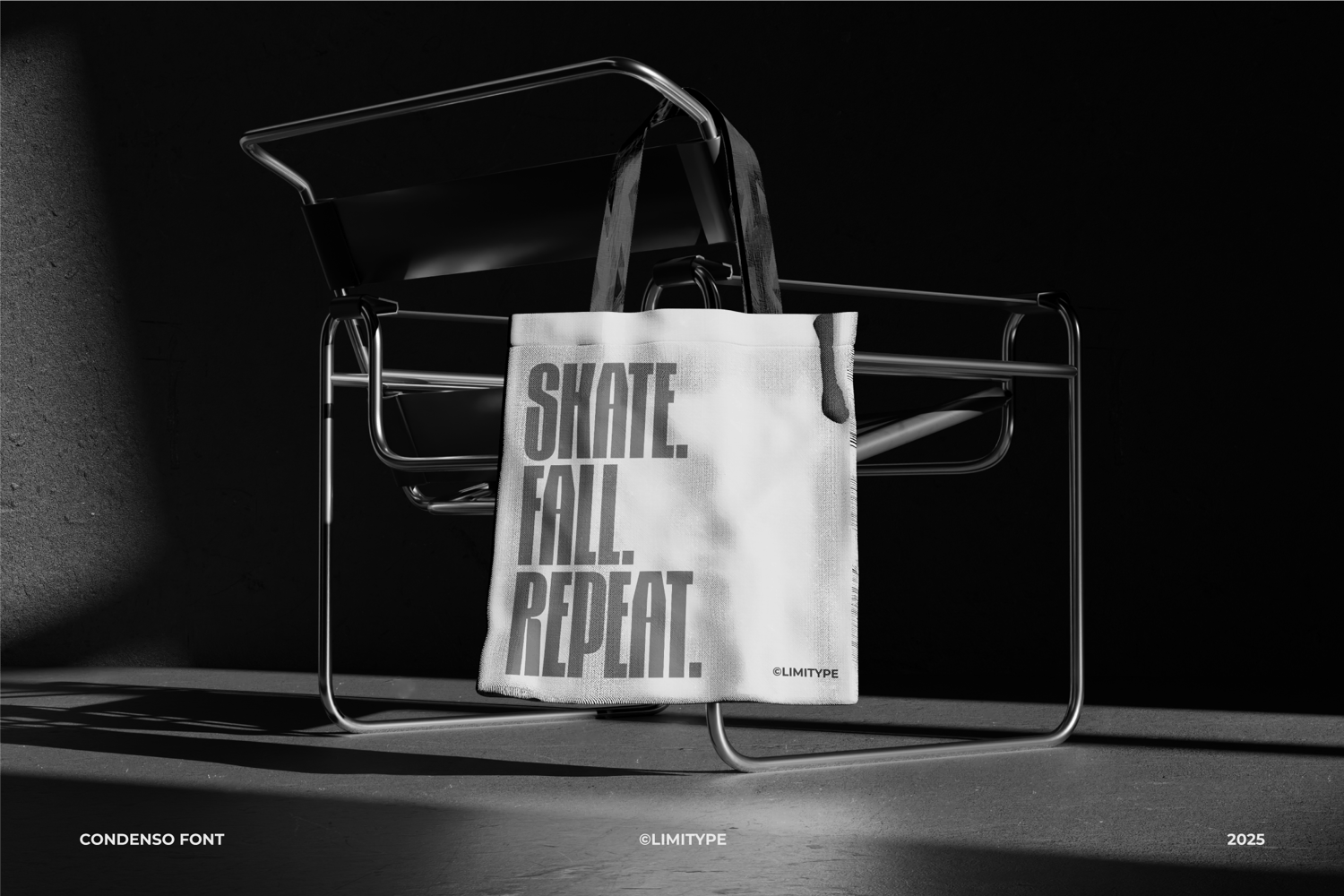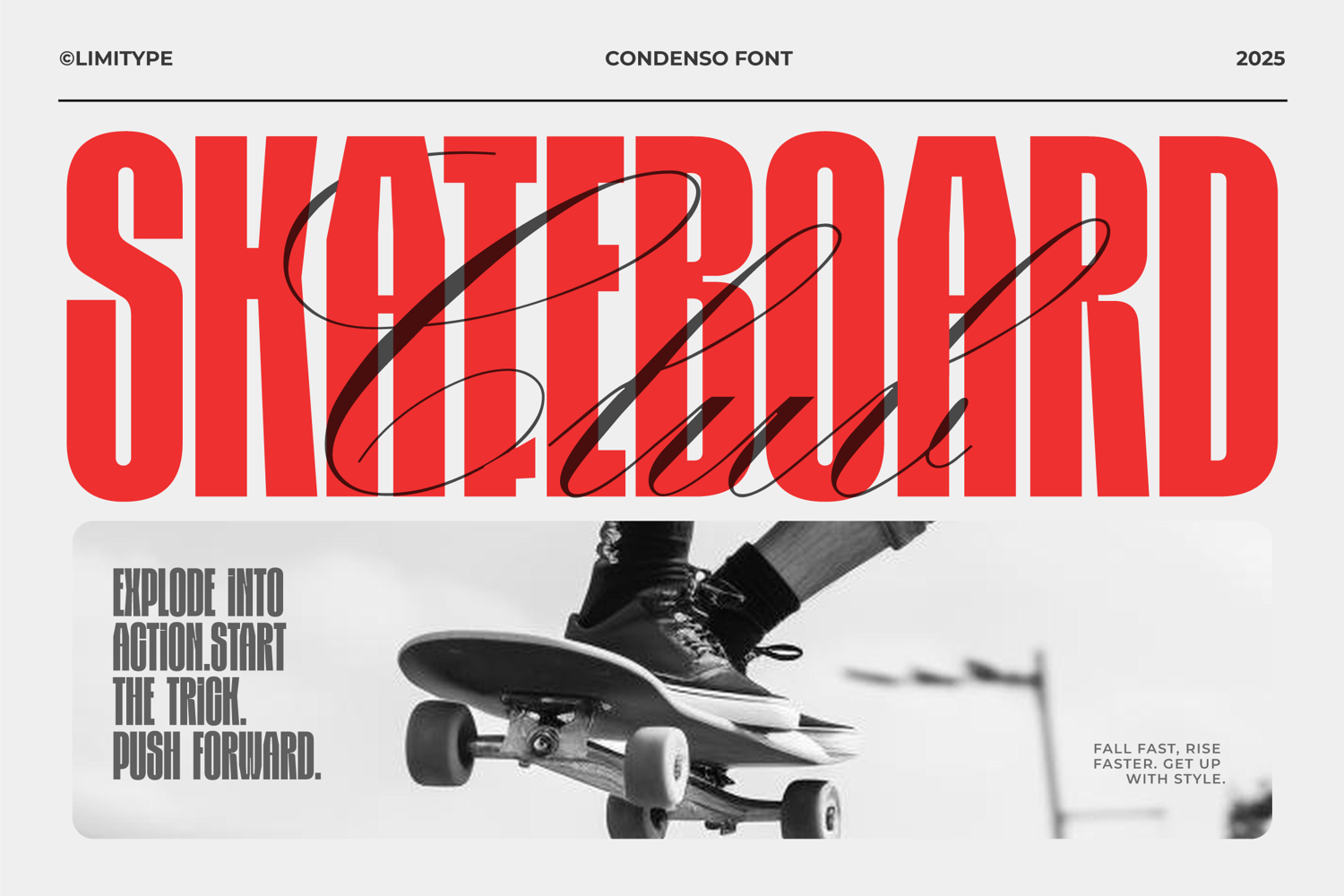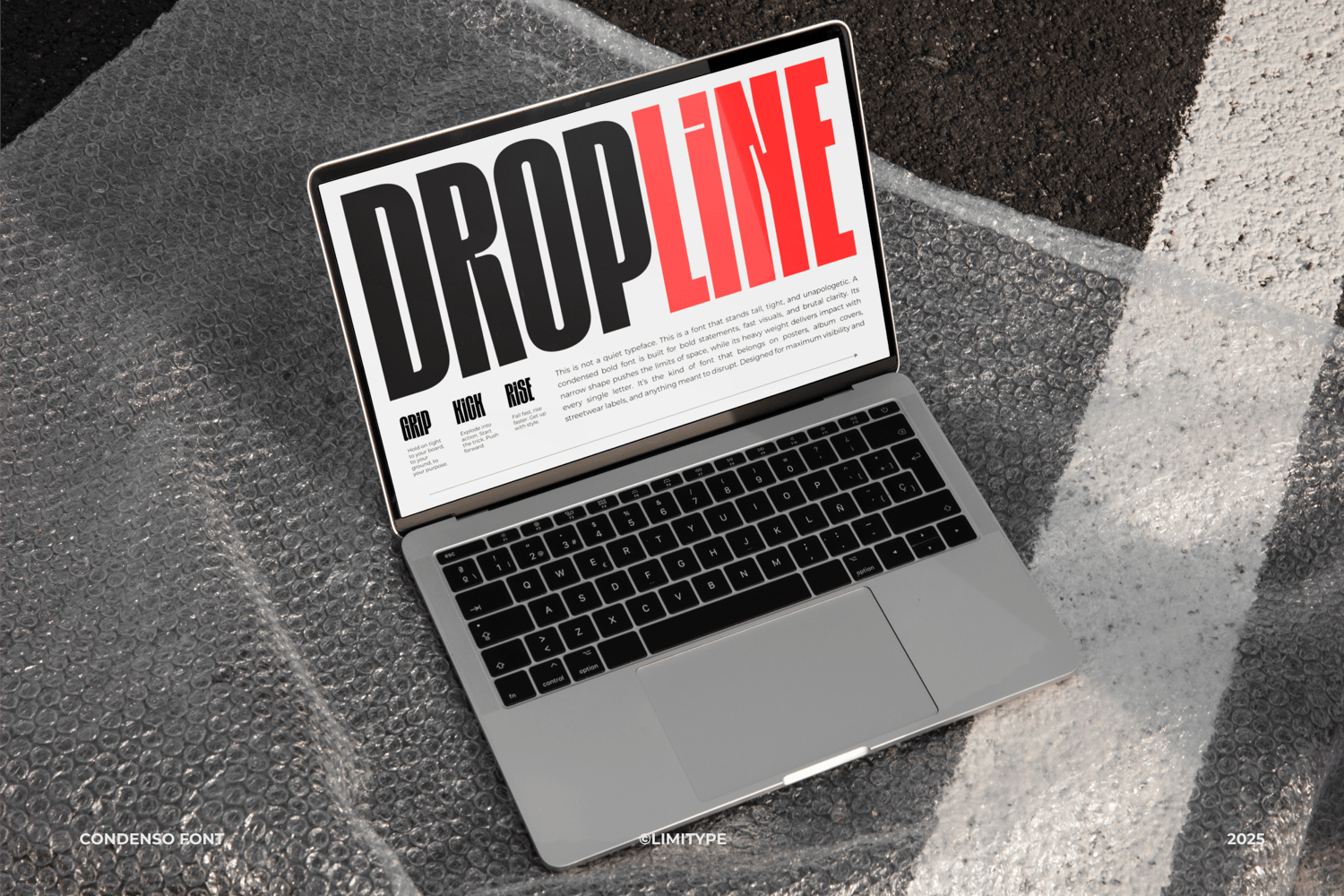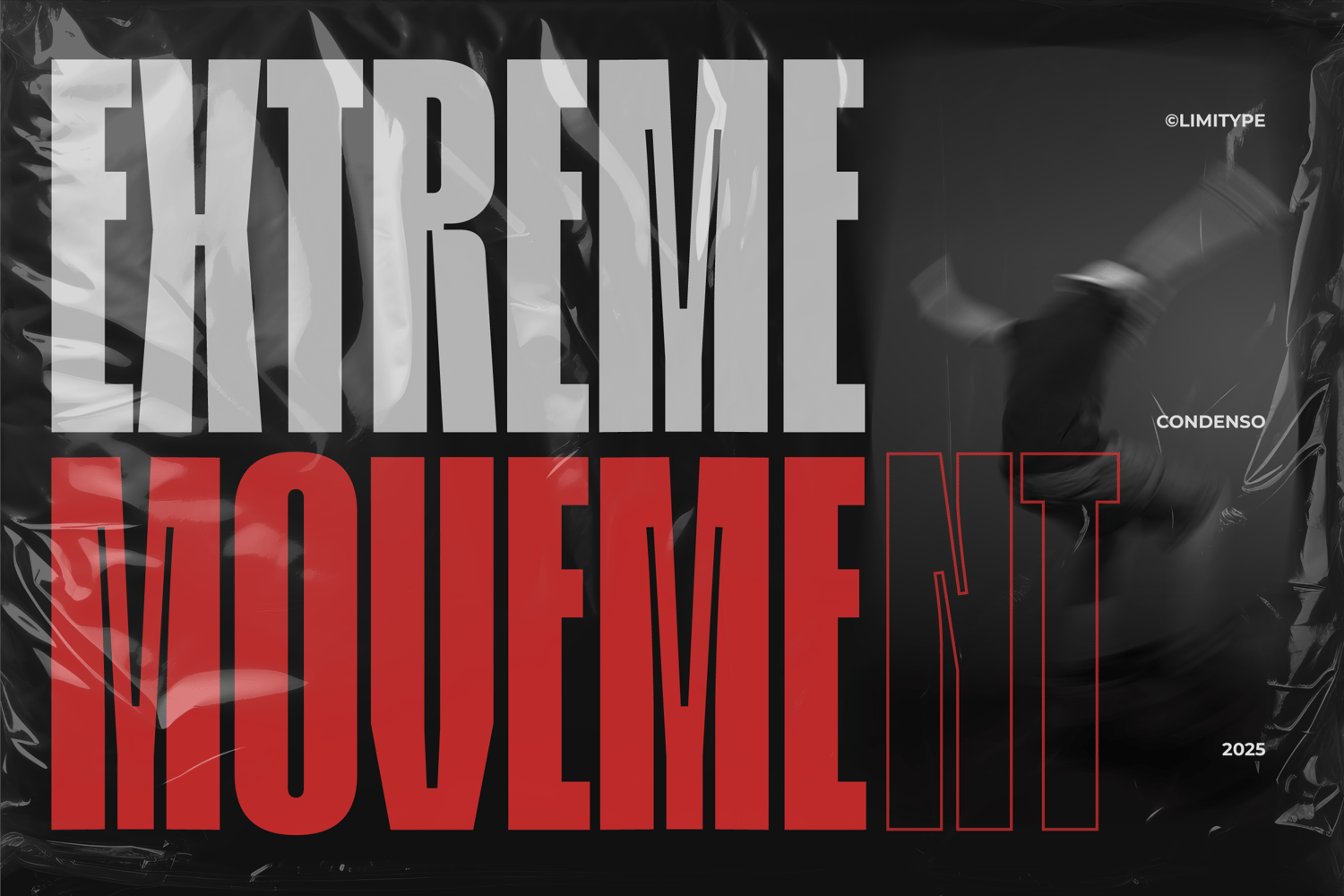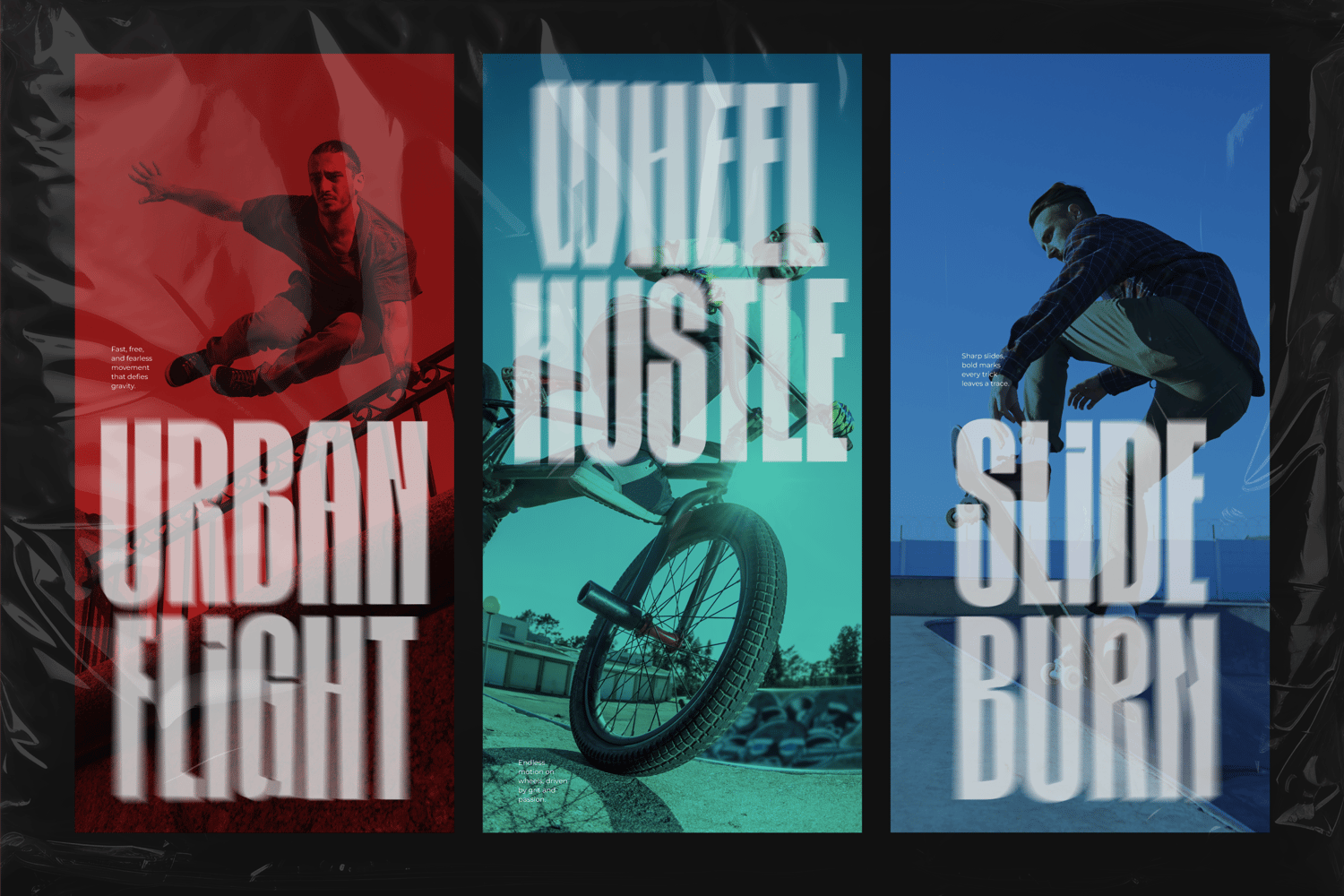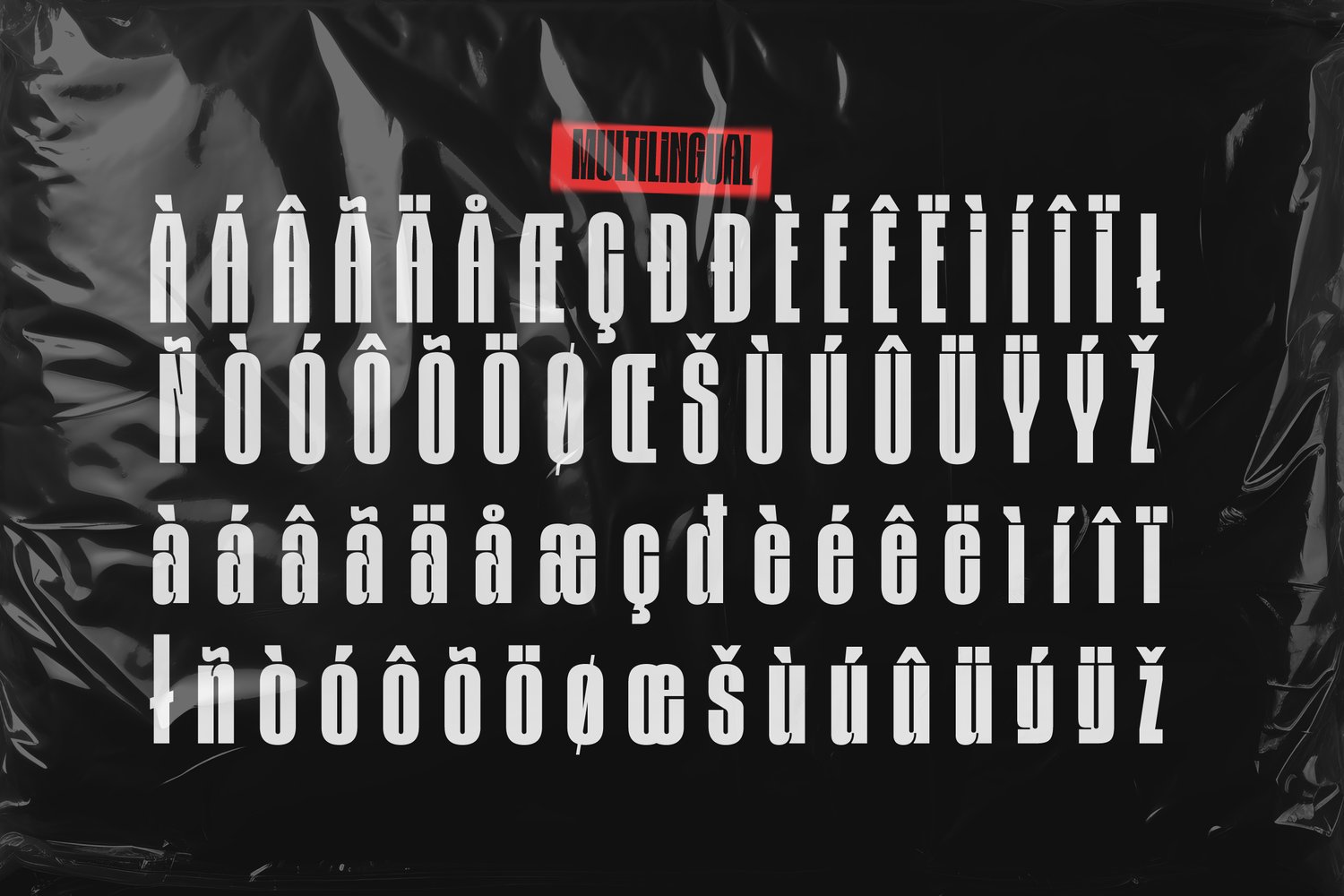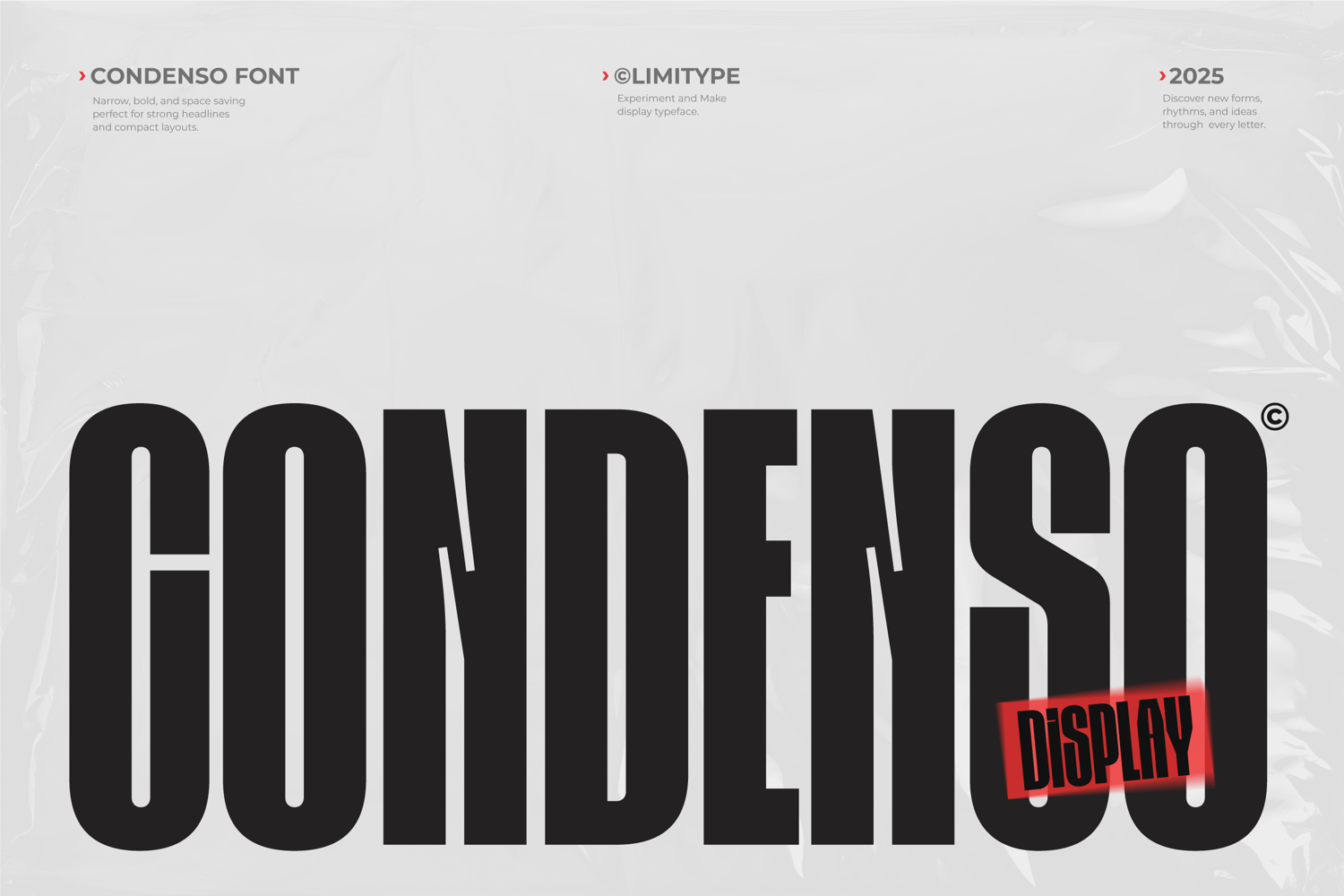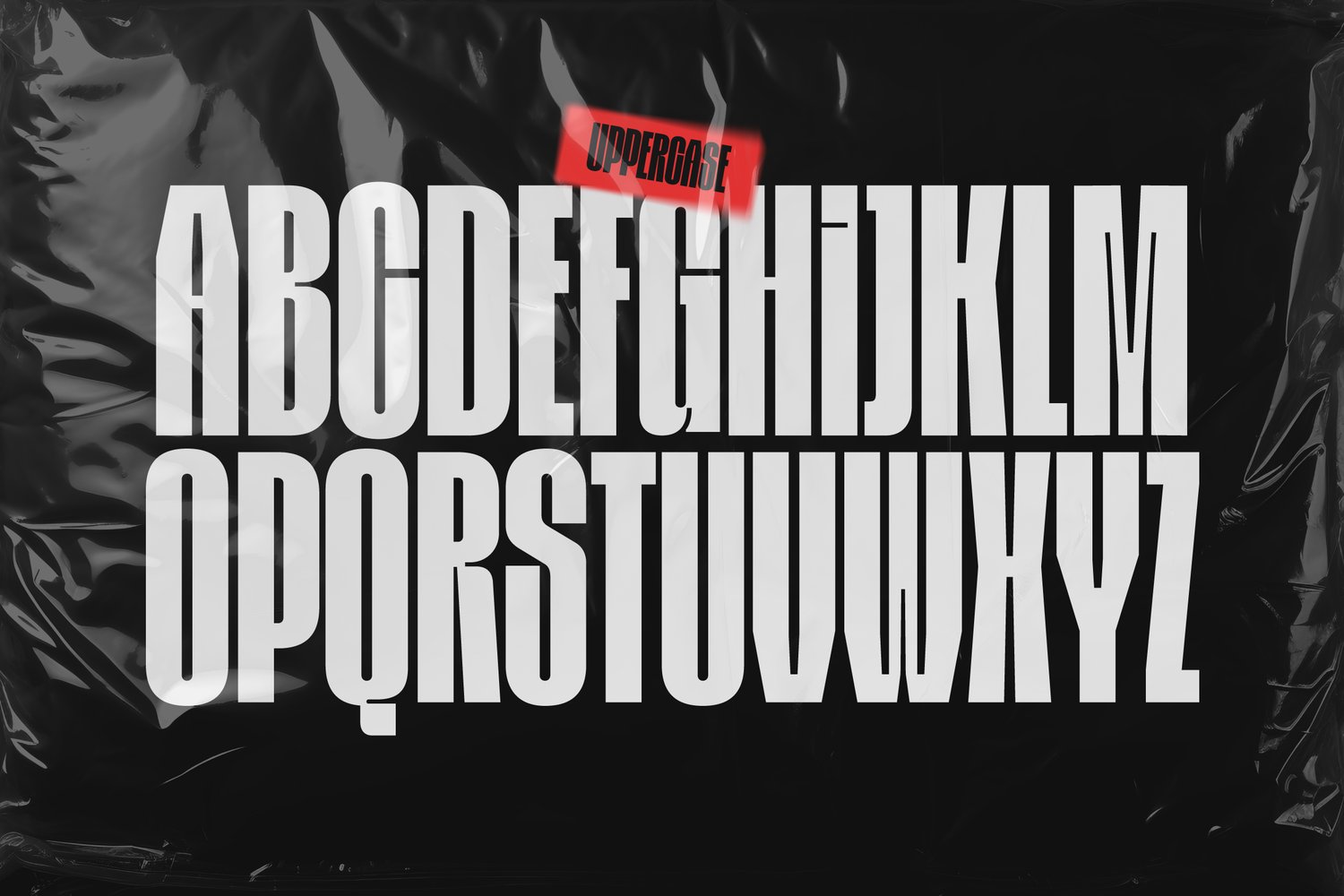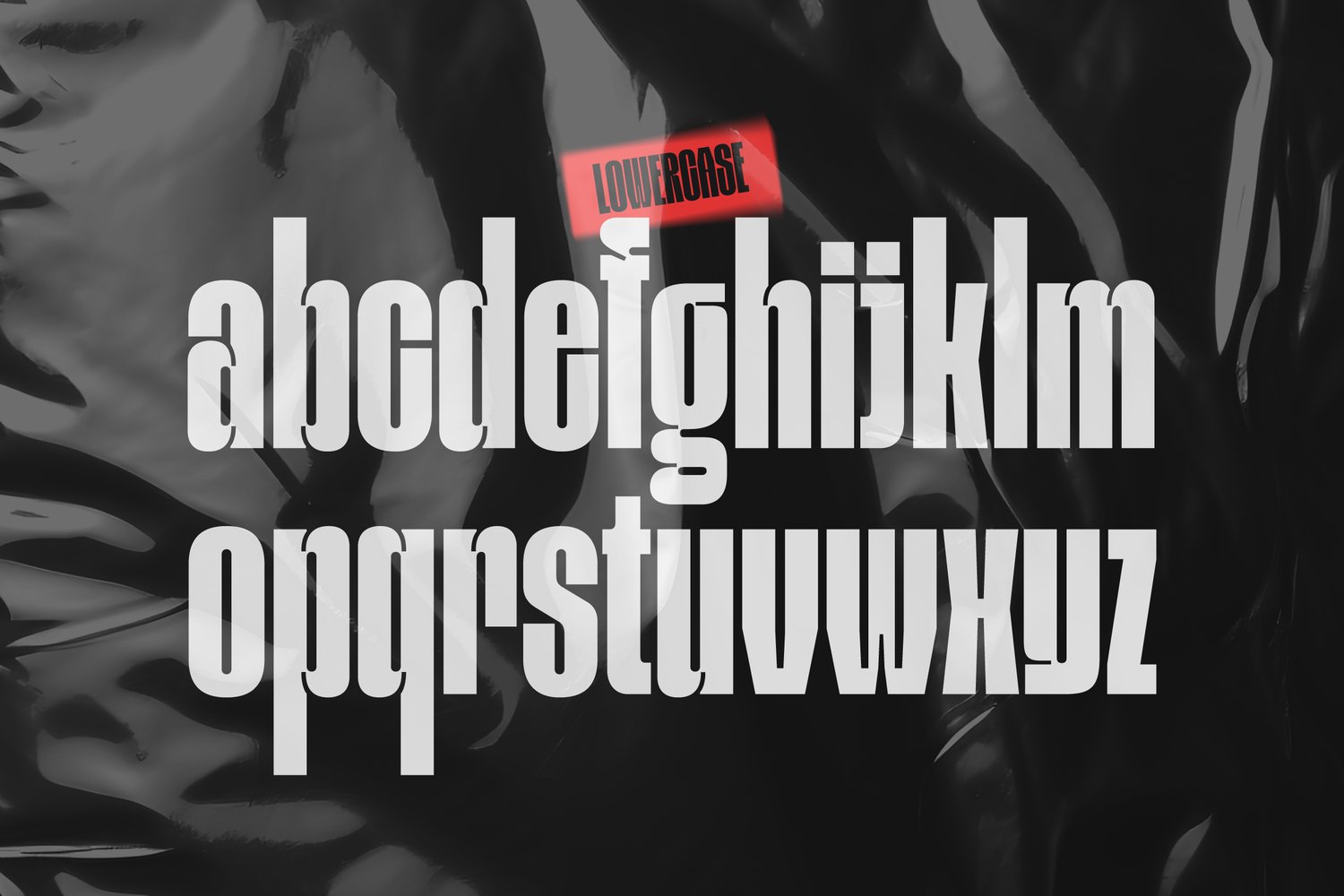
Condenso - Condensed Font
Condenso is a modern condensed display font featuring a narrow form and distinctive inktraps, making it ideal for headlines, posters, urban themes, merchandise, and branding.